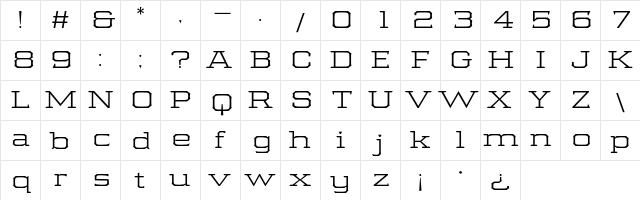
Samton Extra Extended Light
| Foundry | Ilham Herry Type Supply |
| Designer | Ilham Herry |
Design Context for Samton Typeface
Samton offers clean, dependable letterforms without strong stylistic allegiance, making it a practical choice for designers who need flexibility. The delicate stroke weight brings airiness and refinement to layouts.